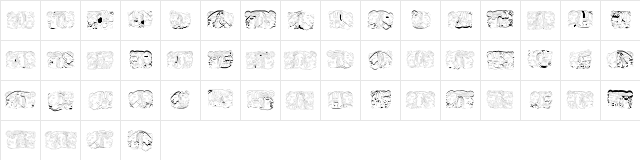
Sipirit of Montezuma Four Regular
Foundry: Paulo W, Intellecta Design
Design Context for Sipirit of Montezuma Four
Sipirit of Montezuma Four is a composed and adaptable typeface that performs quietly and consistently across a wide range of design contexts.